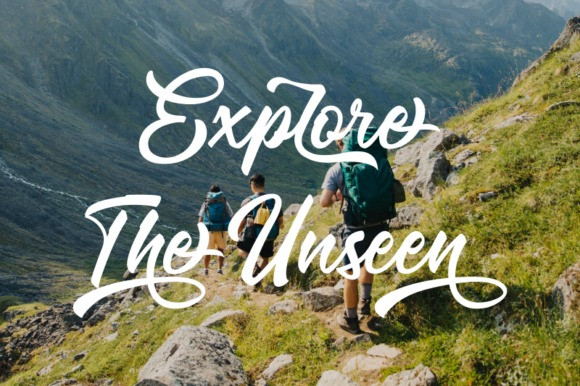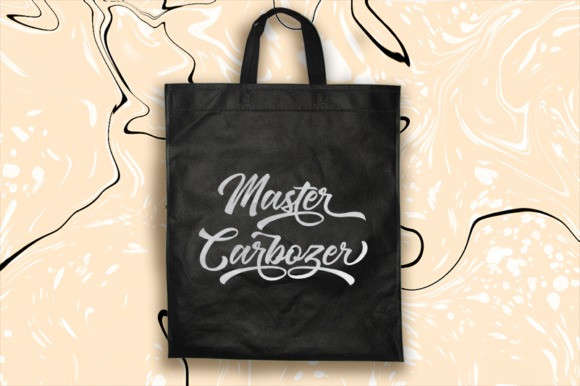
Full Out Brush Font
Full Out font script brush. This font was designed by handwriting, and it has a modern and unique form of calligraphy, the writing style is very natural.